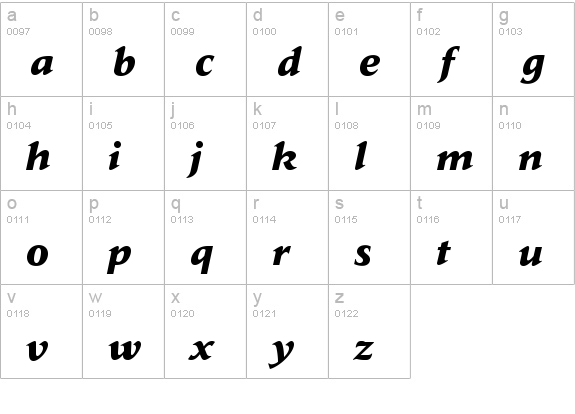
Jaeger Daily News Bold Italic is a strong, high-contrast, italic variant in the Jaeger typeface family \xE2\x80\x94 well suited to headlines, attention-grabbing titles, and strong calls-to-action.
Introducing Jaeger Daily News Bold Italic, a font that effortlessly combines the timeless elegance of bold typography with a subtle touch of italic flair. This striking font captivates with its strong presence and refined aesthetics, making it the perfect choice for headlines, titles, and any project that demands attention. Jaeger Daily News Bold Italic is meticulously crafted to exude a sense of authority and sophistication. Its bold weight commands attention, while the gentle italic angle adds a touch of modernity and dynamism. This unique combination creates a harmonious balance that is both captivating and versatile, making it suitable for a wide range of design applications. What makes Jaeger Daily News Bold Italic even more compelling is its availability for free download at FontsMarket.com. Yes, you read it right - this exceptional font can be freely obtained, allowing designers, creatives, and typographic enthusiasts to enhance their projects without breaking the bank. Whether you're working on editorial layouts, branding materials, or digital designs, Jaeger Daily News Bold Italic is here to elevate your work to new heights. Its clean and legible design ensures readability across various mediums, while its bold and italic characteristics inject a sense of personality and style. With Jaeger Daily News Bold Italic, you have the power to make a statement, to captivate your audience, and to leave a lasting impression. So why wait? Head over to FontsMarket.com and take advantage of this amazing opportunity to freely download Jaeger Daily News Bold Italic. Enhance your creations with a font that embodies the perfect blend of boldness and elegance.